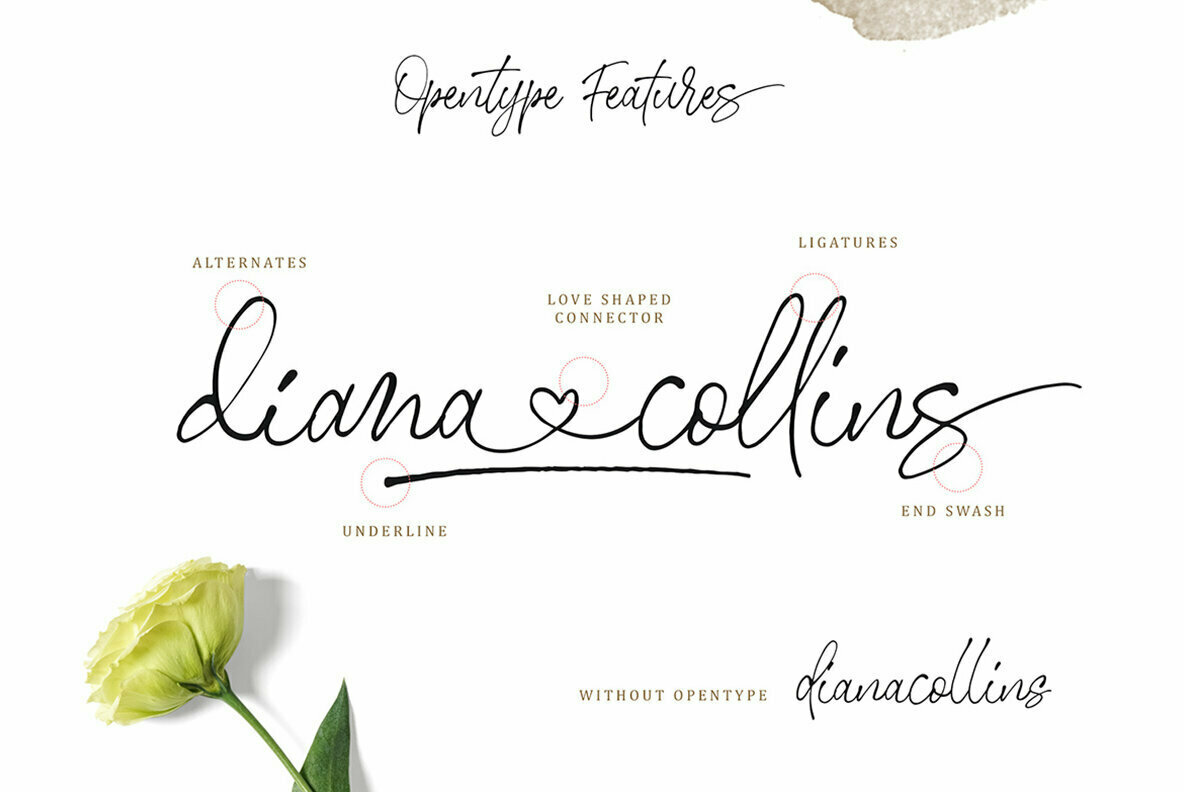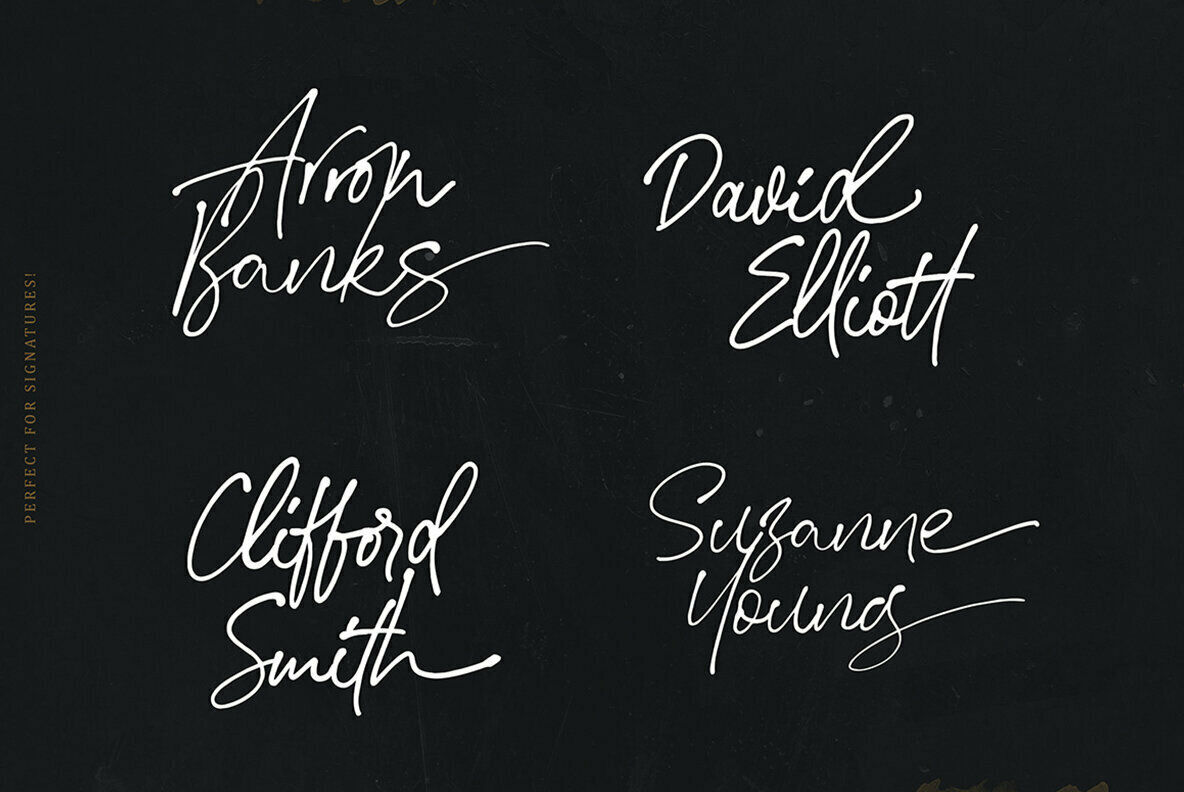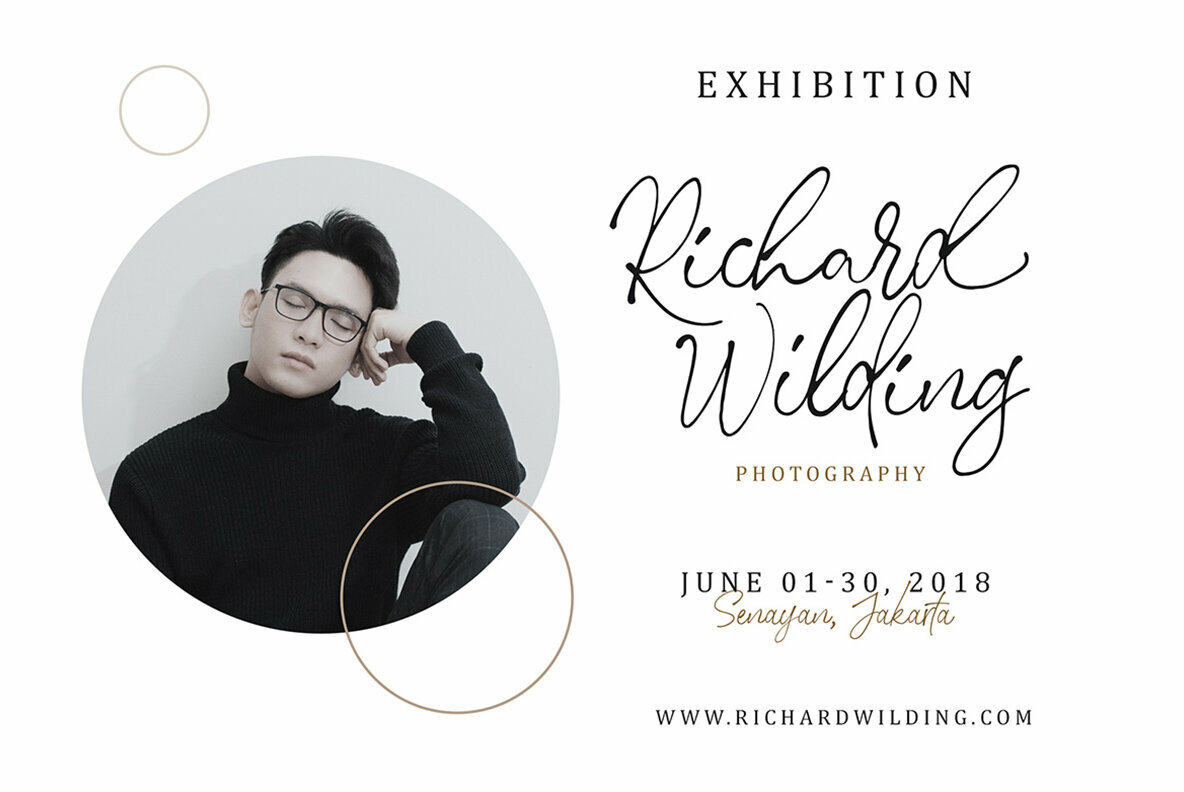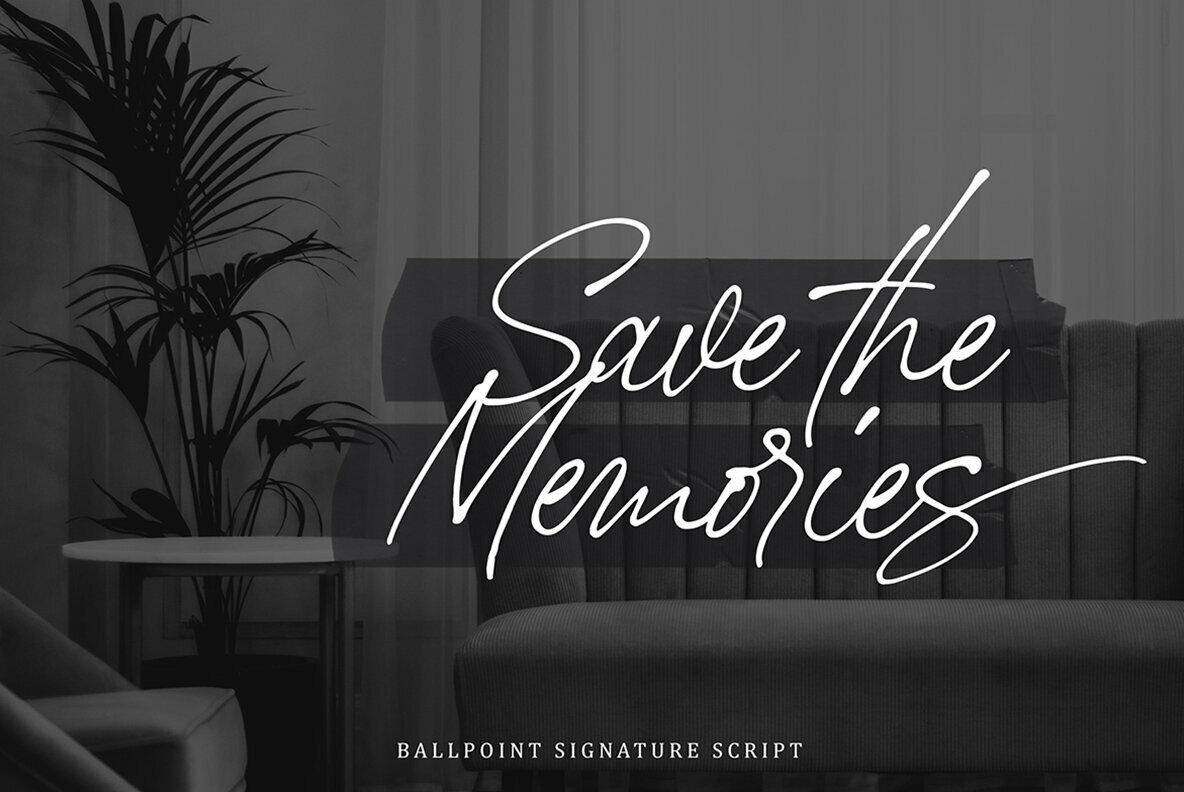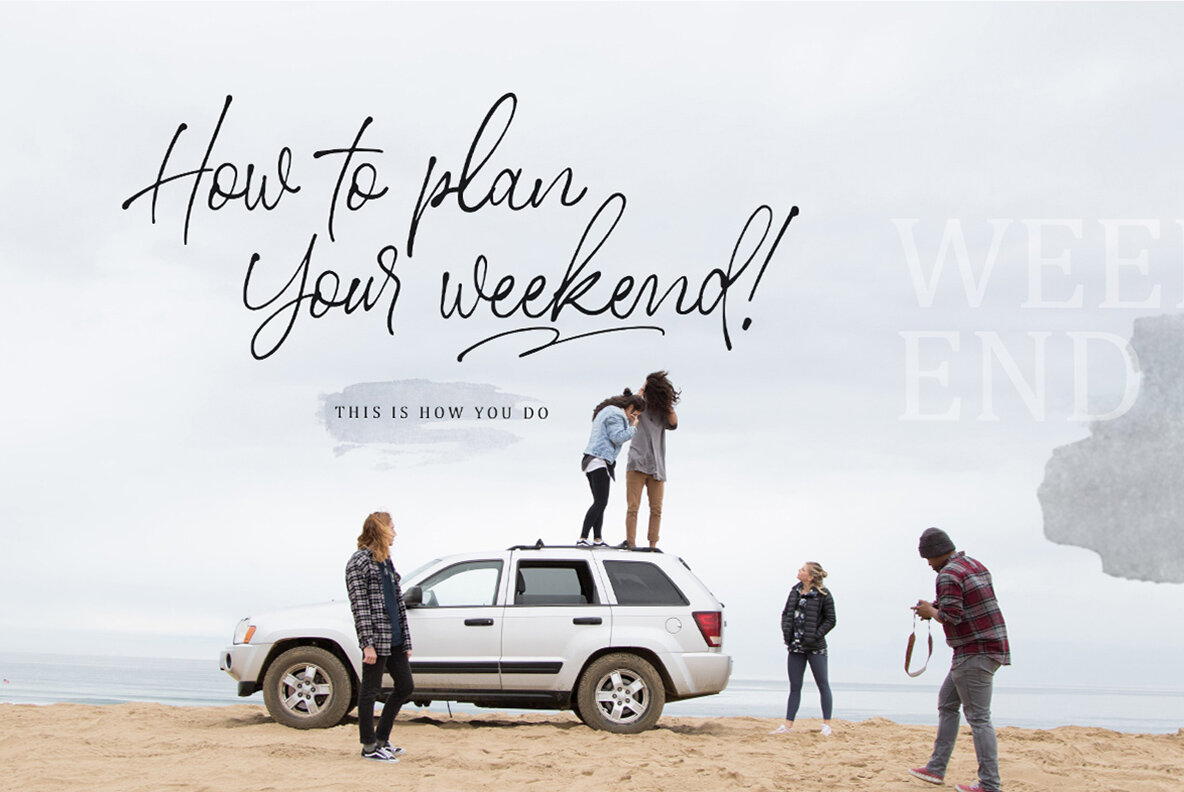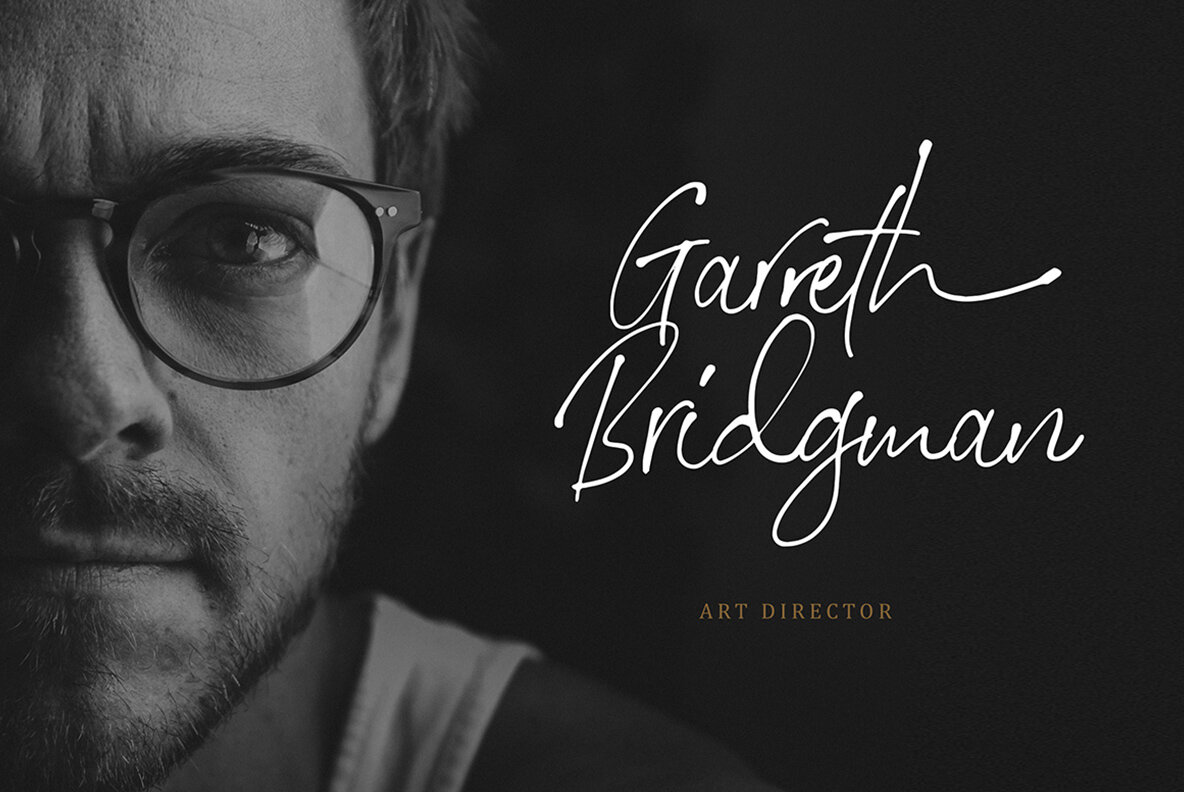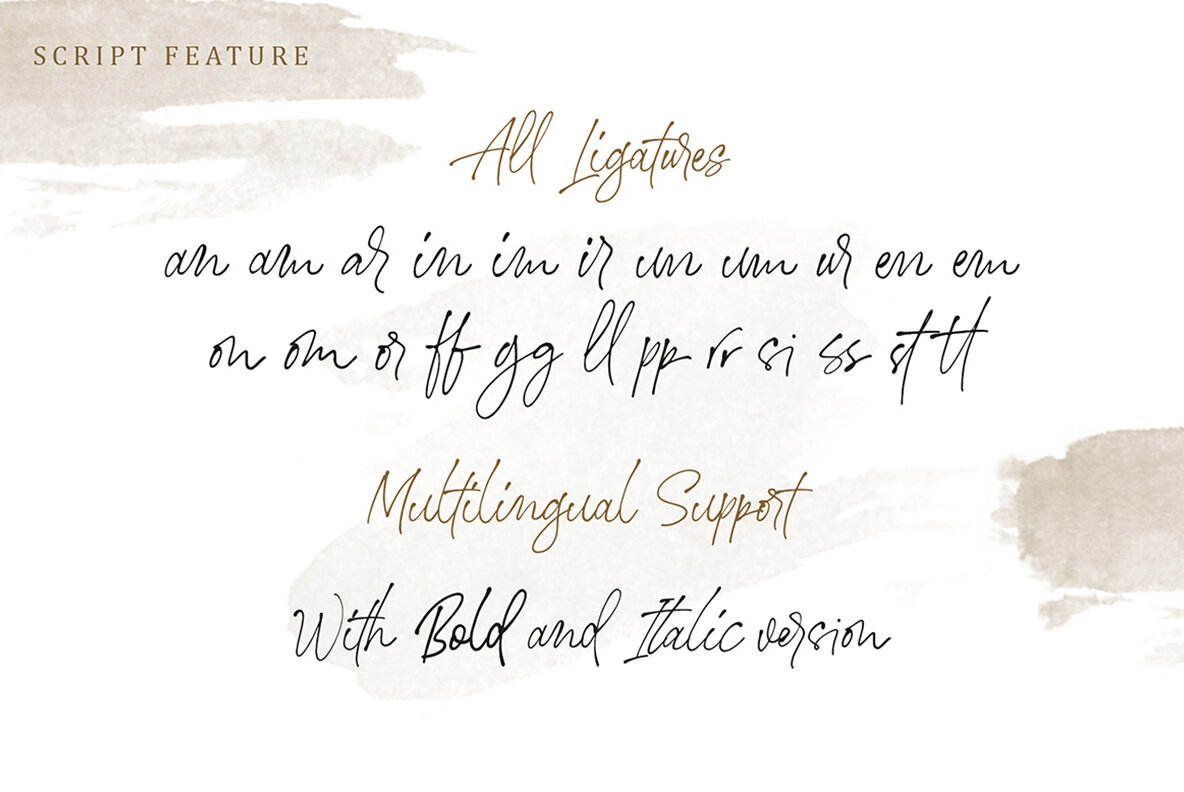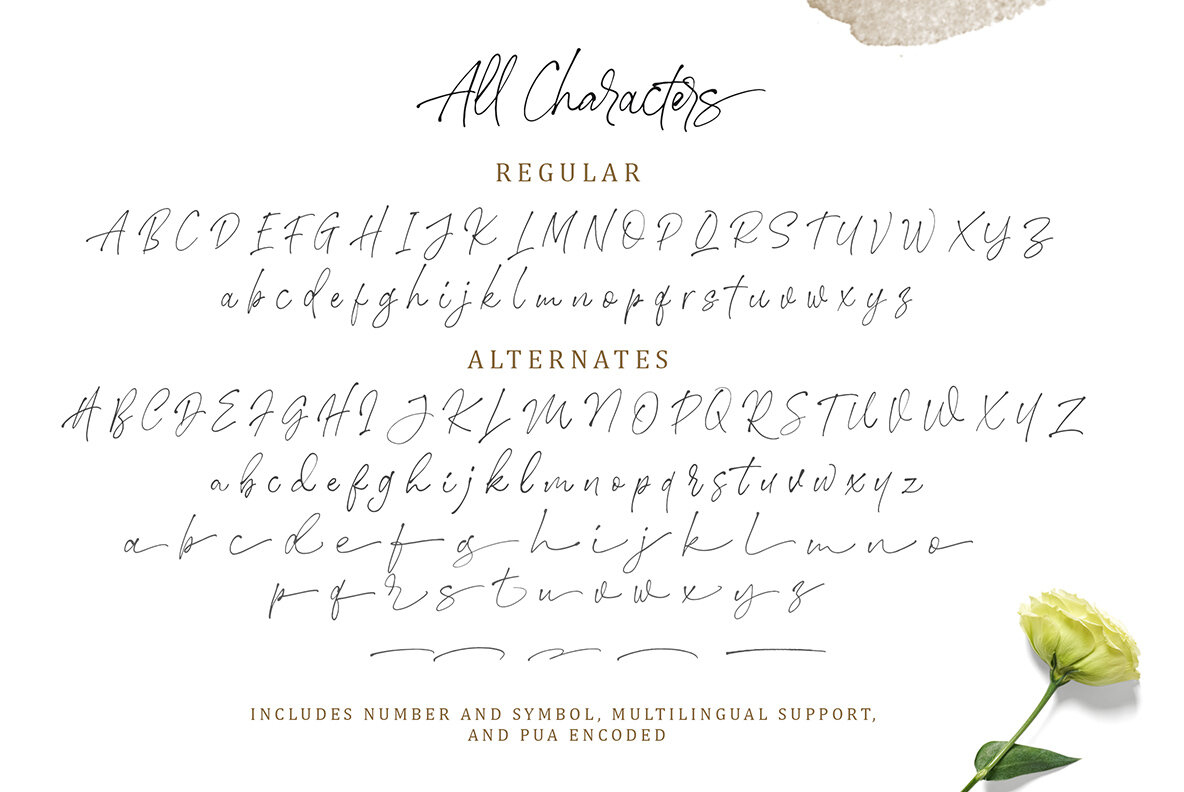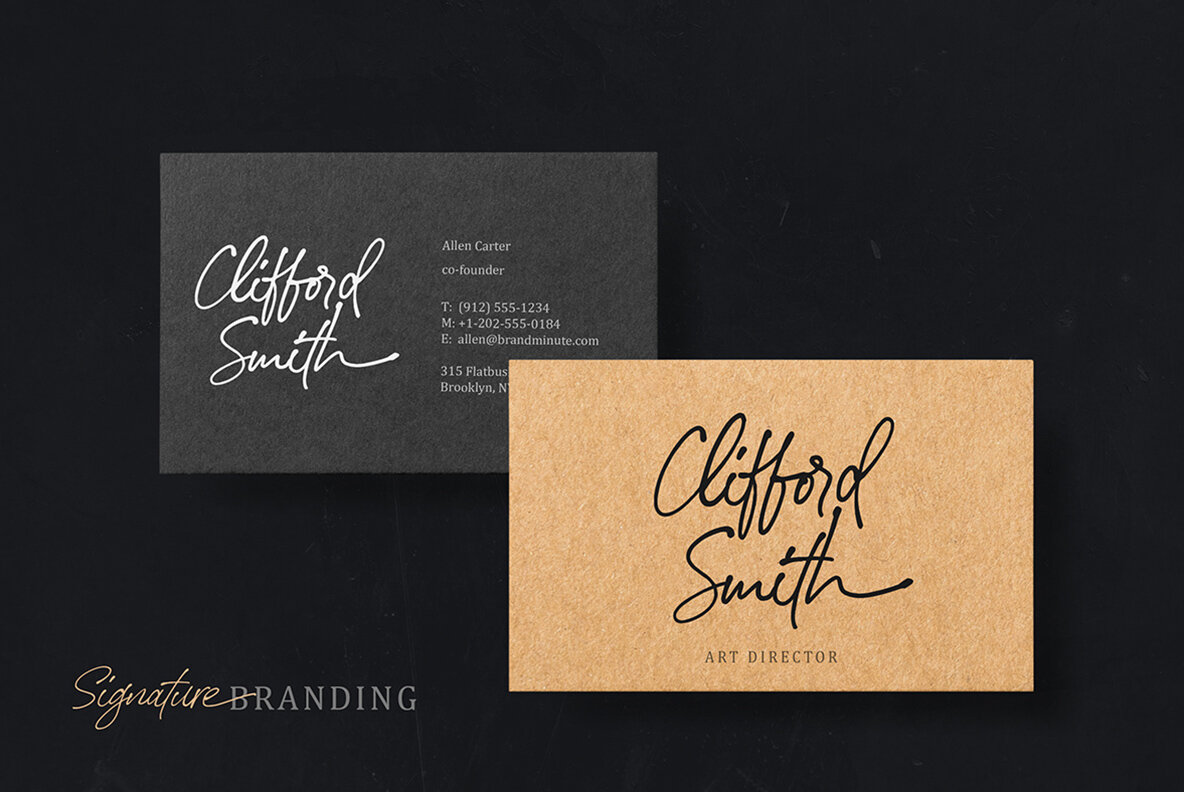
Stephen Gillion Font
Stephen Gillion offers a sophisticated script font ideal for crafting personalized signatures or distinctive logos. Its three versatile styles feature stylistic alternates and swashes that enhance its flexibility, allowing for a truly custom design experience. Whether you're working on a branding project, fashion design, wedding invitations, or handwritten quotes, this font adapts seamlessly. With a unique heart-shaped connector and PUA encoding, your creative opportunities expand further.Stephen Gillion: Craft Your Unique Signature